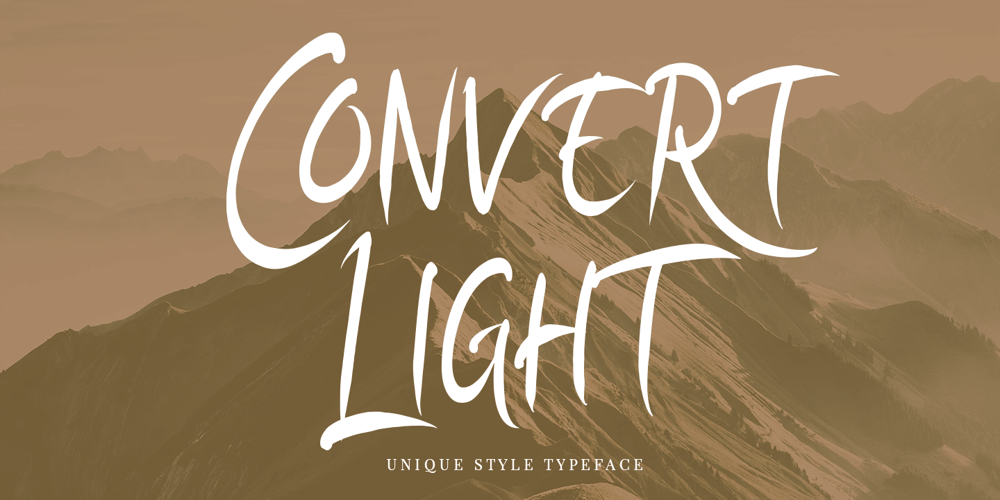
Convert Light Font Family was designed by Putra Khan and published by Mindtype Co.. Convert Light contains 1 styles and family package options. Convert Light is something unique and interesting to display and can be used for various media needs, such as social media, brochures, posters, movies, cartoons, horrors, and more.